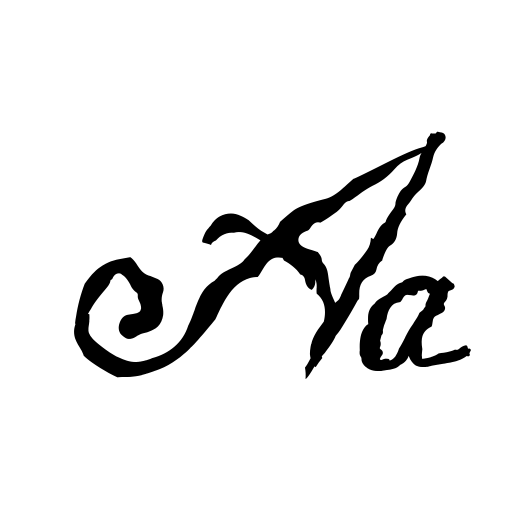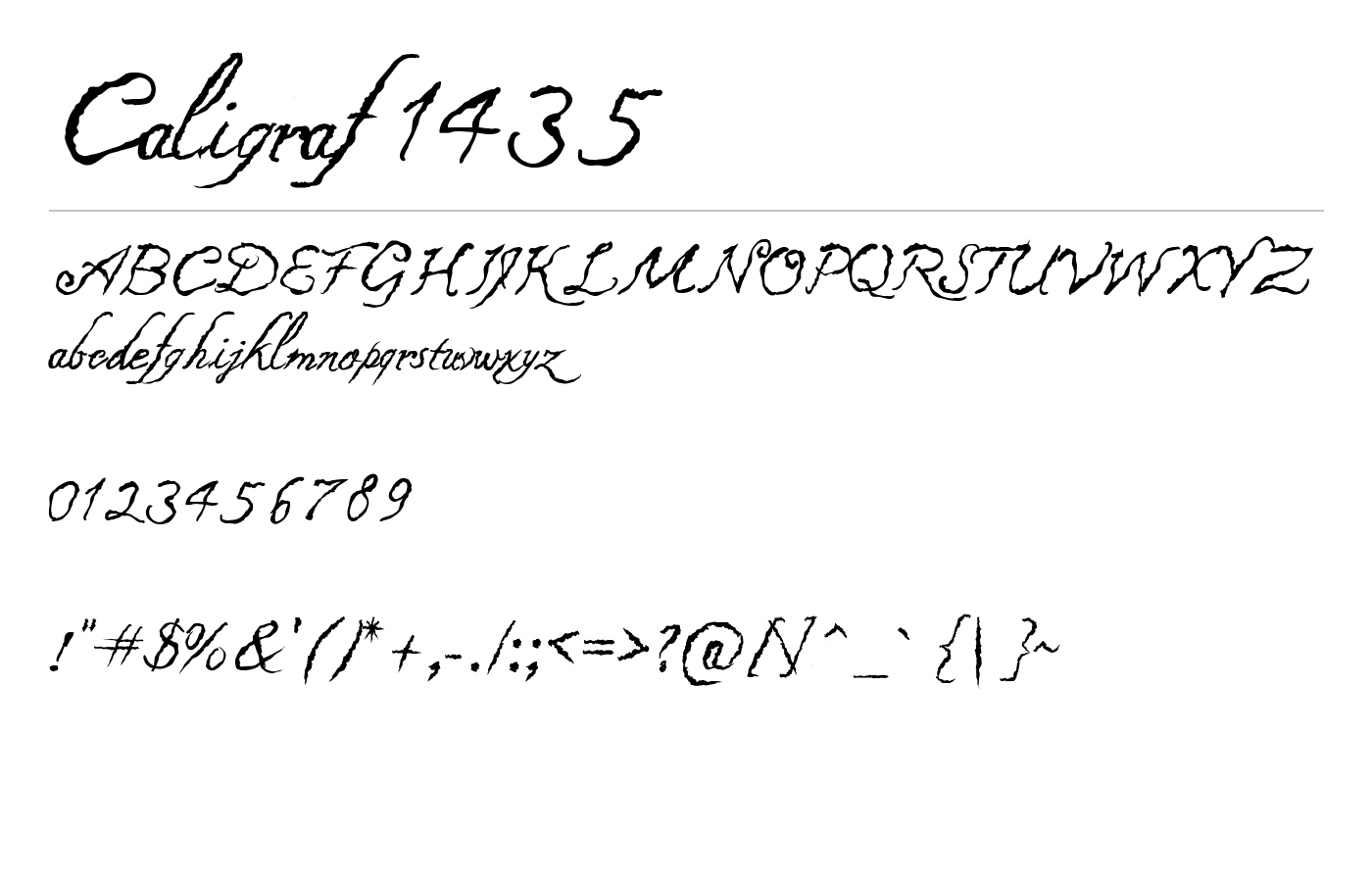
Caligraf 1435 is a delicate, handwritten script font that mimics elegant calligraphy with a slightly rough, textured stroke. Its slender, flowing letterforms create a vintage, artistic feel, making it ideal for decorative uses like invitations, logos, and branding that seek to convey sophistication and a personal touch. This font works best in display settings where its unique character and subtle imperfections can shine.
Caligraf 1435 Font
About Caligraf 1435 Font